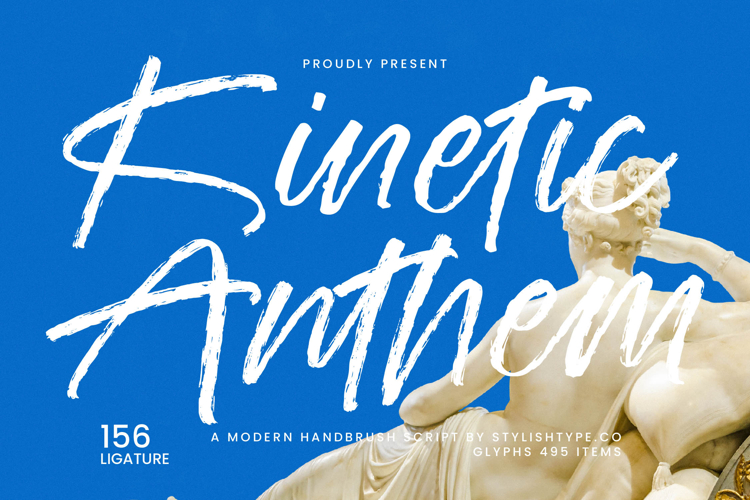
Kinetic Anthem - Modern Handbrush Script
Elevate your branding from standard to spectacular. Kinetic Anthem - Modern Handbrush Script is meticulously engineered for impact, featuring an extensive suite of 156 ligatures and alternate glyphs that ensure highly customized, fluid connections and genuine handwritten realism. This comprehensive set of features is ideal for luxury branding, bold apparel design, dynamic website headers, event posters, and editorial spreads that require a signature aesthetic and maximal authenticity.